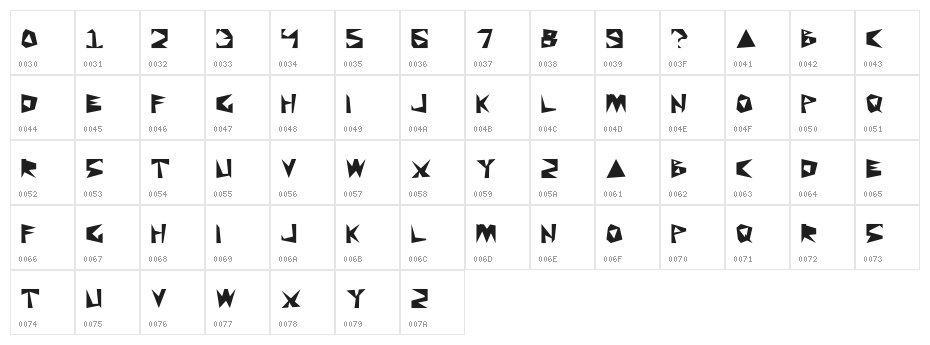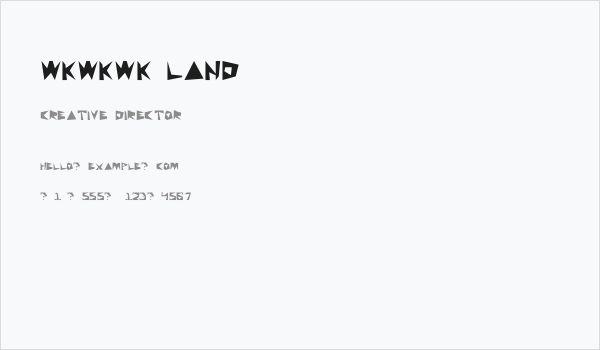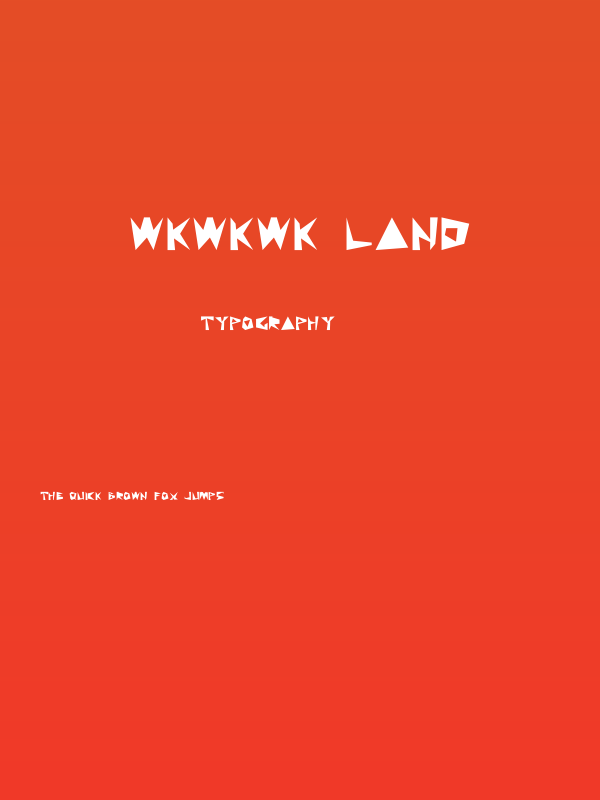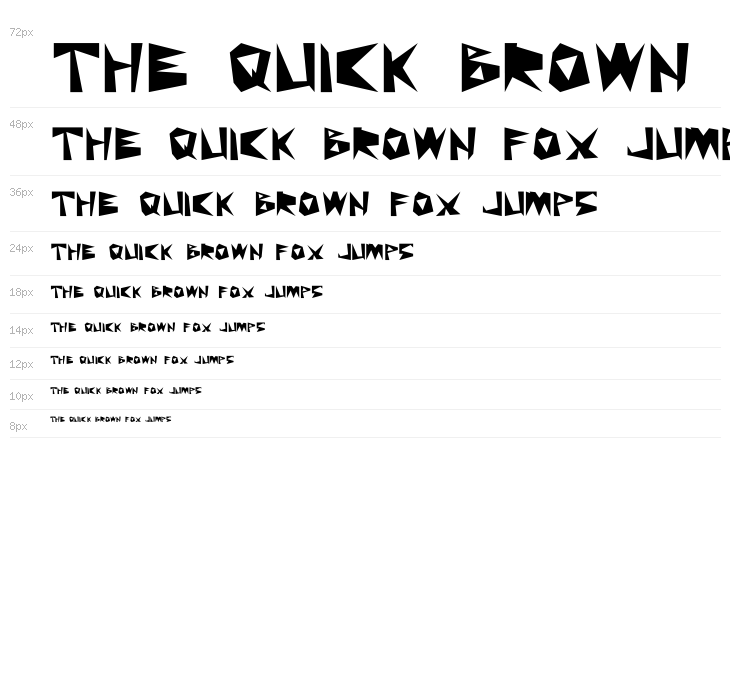
WKWKWK LAND Font
WKWKWK LAND Description
This font features a bold, angular design with sharp, geometric edges that give it a dynamic and aggressive appearance. The characters are constructed with a series of straight lines and pointed angles, creating a sense of movement and energy. The uppercase and lowercase letters maintain a consistent style, with each character exhibiting unique angular cuts that contribute to the overall jagged aesthetic. The numbers and special characters follow the same design principles, ensuring a cohesive look across all glyphs. This font's distinctive style makes it ideal for projects that require a strong visual impact.
| Proposed Projects | Ideal for music album covers, video game titles, sports team logos, and edgy branding projects. |